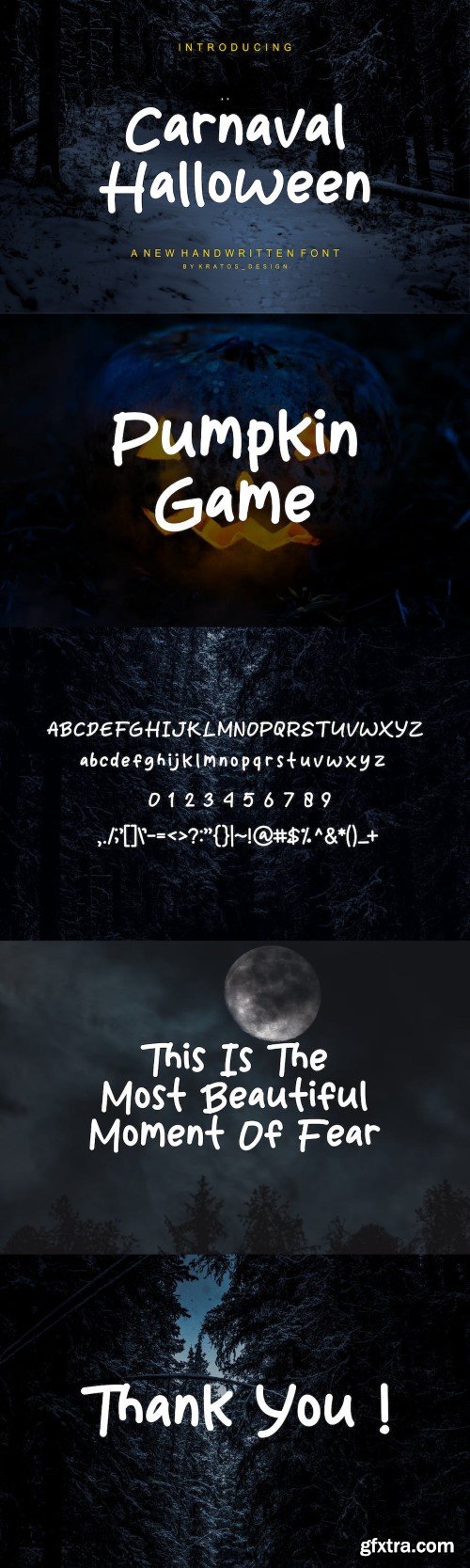
狂欢节万圣节 - 字体
Carnaval Halloween - Font
- Modern Font is a bold and authentic display font. The font is suitable for any branding project like logo, Template Design, Product and many more. outstanding in a wide range of contexts.